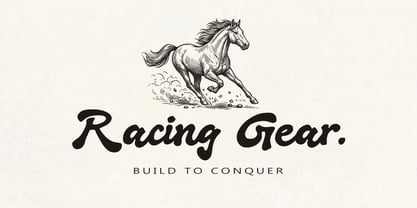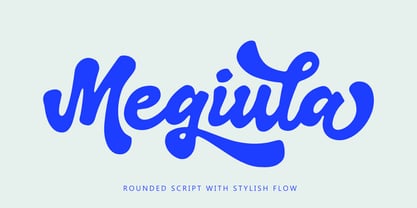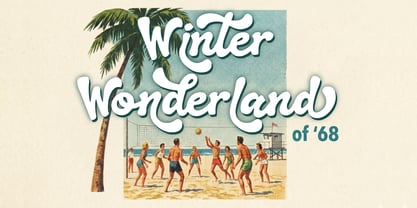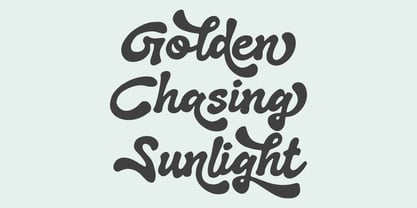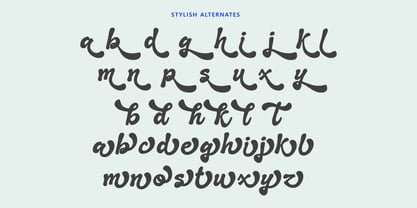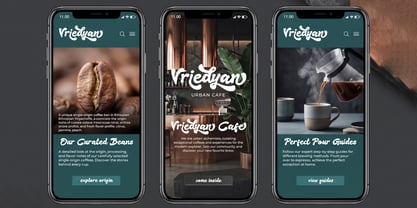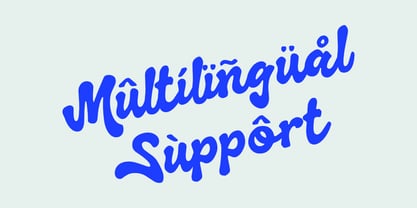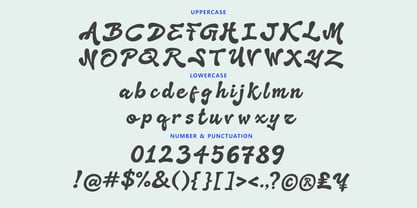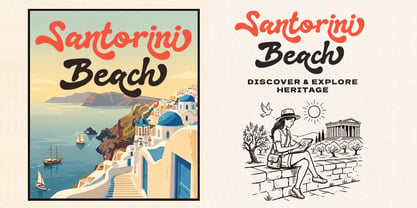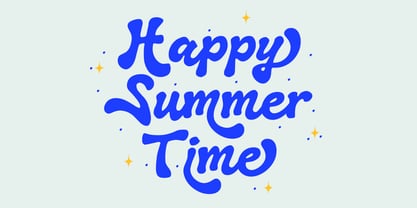
Megiula
by Sealoung
Megiula – Rounded Script With Stylish Flow
Megiula is a smooth and modern script font designed to bring elegance and personality into your creative projects. With its rounded letterforms, flowing curves, and natural handwritten feel, Megiula delivers a perfect balance between playful charm and professional style.
Carefully crafted with attention to detail, this font features beautiful connections and a seamless flow, making it ideal for eye-catching designs that require a soft yet confident touch.
Perfect for:
• Logo design
• Branding & identity
• Packaging
• Social media graphics
• Wedding invitations
• Quotes & typography
Features:
• Uppercase & Lowercase
• Stylistic Alternates
• Numerals & Punctuation
• Multilingual Support
Megiula is your go-to script font for creating designs that feel warm, stylish, and modern.